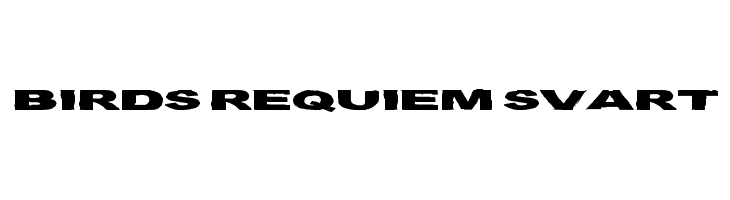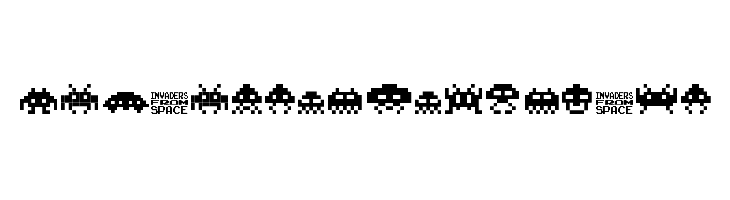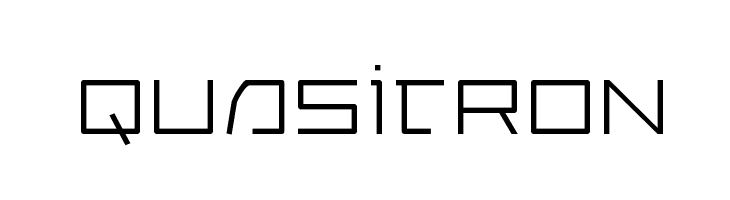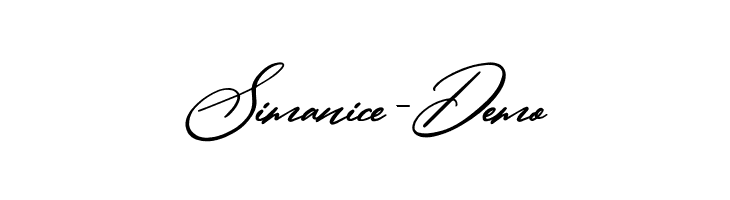
A bold, decorative font with sharp, angular edges and a three-dimensional effect.
A clean, modern font with a minimalist and balanced design.
A bold, geometric font with a three-dimensional outlined style.
A playful, handwritten font with irregular strokes and a casual vibe.
An elegant and ornate script font with intricate swirls and flourishes.
A playful, casual handwritten font with uneven strokes and a personal touch.
A bold, geometric font with a three-dimensional effect and angular shapes.
A bold, geometric font with a modern and impactful design.
A bold, angular font with a futuristic, geometric design.
A bold, geometric font with clean lines and a modern aesthetic.